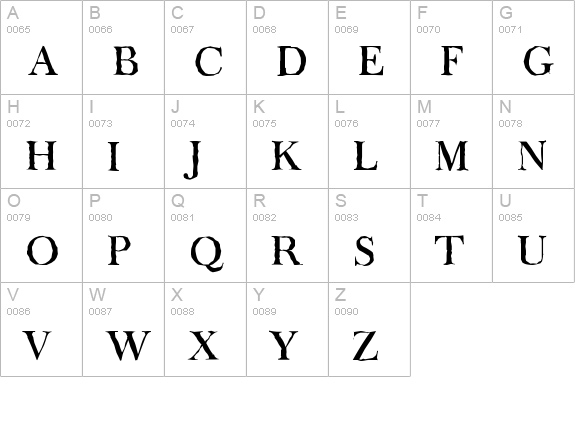
BaskerOldAntique-Medium-Regular is a balanced, medium-weight variant in the BaskerOldAntique typeface family \xE2\x80\x94 well suited to sub-headlines, navigation, and balanced editorial work.
BaskerOldAntique-Medium-Regular font exudes a timeless charm with its classic and elegant design. This vintage-inspired typeface is perfect for adding a touch of sophistication to your projects. The medium weight strikes the perfect balance between boldness and readability, making it versatile for a variety of applications. Best of all, BaskerOldAntique-Medium-Regular font is available for free download at FontsMarket.com. Embrace the nostalgia and elegance of this font in your designs without any cost. Whether you're working on invitations, branding materials, or editorial layouts, this font will elevate your work with its historic flair and refined aesthetic. Download it today and add a touch of vintage elegance to your projects.